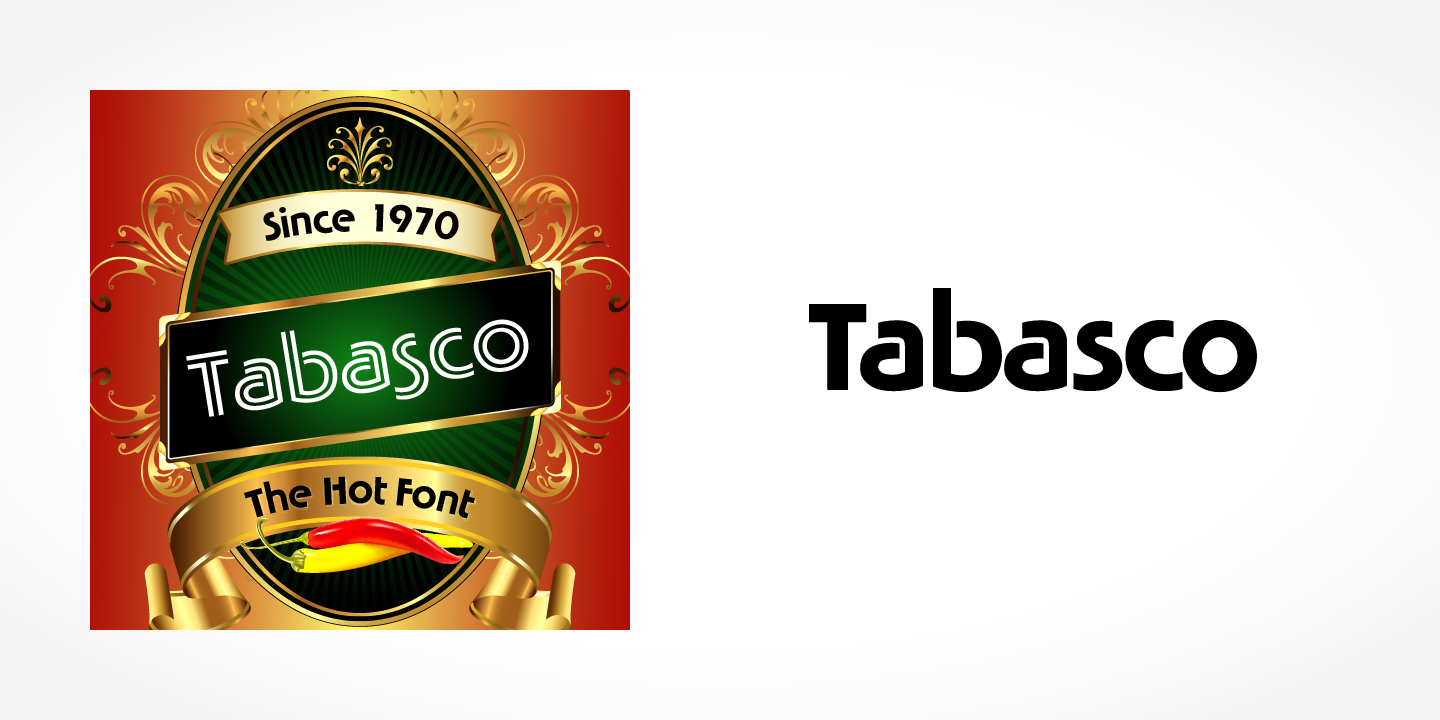
The Tabasco Font is perfect for various design applications including spicy food branding, hot sauce packaging, Mexican restaurant logos, fiery cuisine marketing, chili pepper festival graphics, spice shop signage, hot sauce competition materials, and bold culinary adventure designs. This fiery typeface works exceptionally well for spicy food brands and projects requiring intense heat with bold culinary appeal.
What makes Tabasco Font exciting is its fiery and intense character that instantly ignites passion for spicy flavors and captures the burning excitement of hot cuisine with explosive taste. The font features bold letterforms with spicy heat and chili-inspired aesthetics that evoke feelings of intensity, excitement, and mouth-watering culinary adventure. Its fiery styling and hot sauce appearance make it perfect for brands that want to create memorable taste experiences and connect with spice lovers who crave bold, intense flavors and culinary excitement.
The Tabasco Font family includes multiple weights and styles, offering designers flexibility for diverse spicy applications. The family typically consists of regular, bold, condensed, and flaming variations, along with chili pepper decorative elements and hot sauce ornaments, providing comprehensive coverage for projects that need both intensity and visual heat across different culinary contexts.
Whether you're working on spicy food products, hot sauce manufacturers, or fiery cuisine campaigns, Tabasco Font Free Download delivers the burning quality and visual intensity that modern spicy food designers seek. The font's hot sauce-inspired design combined with its excellent readability makes it an essential tool for creating compelling visual communications that celebrate spicy cuisine and bring the explosive spirit of fiery culinary adventures to life.